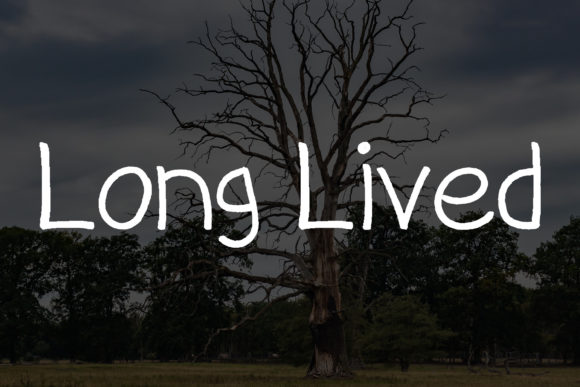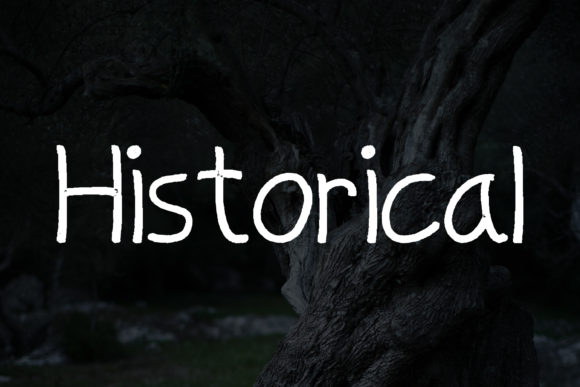
Old Tree Font
db-ku.com - Script & Handwritten -- Old Tree is a simple and adaptable handwritten font. No matter the topic, this font will be an incredibly asset to your fonts’ library, as it has the potential to elevate any creation.